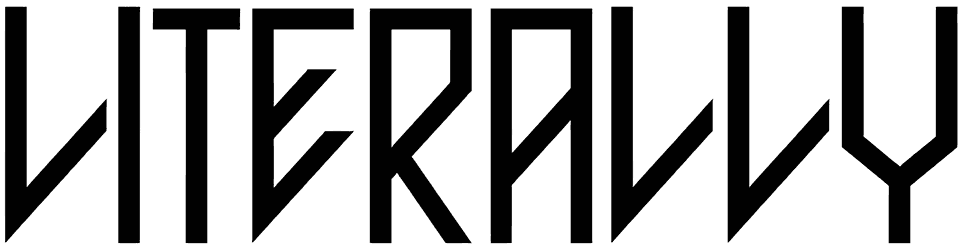
Literally Font
Let’s set a distinct letterform on the words of your new rock music album design and hook a lot of people. The Literally font, with its two versions, has a modern and captivating visual that could make your layout memorable. This sharp font doesn’t support lowercase letters, yet you can count on it for varied projects. Try it and see how cool the final show will become.